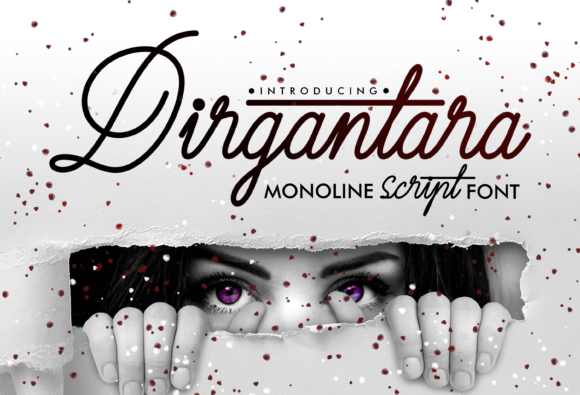
Introducing Dirgantara Font: A Fresh and Modern Script Font
Are you tired of using the same old fonts in your designs? Look no further! Dirgantara Font is a fresh and modern script font that is sure to elevate your creative projects. With its handmade calligraphy style and amazing decorative characters, Dirgantara Font is perfect for designers and crafters looking to add a touch of elegance and sophistication to their work.
What is Dirgantara Font?
Dirgantara Font is a modern script font that is inspired by the art of calligraphy. It has a unique, handmade feel that gives it a personal and distinctive touch. The font is designed to be highly legible and versatile, making it perfect for use in a wide range of creative projects, from branding and advertising to packaging and stationery.
Key Features of Dirgantara Font
• Handmade Calligraphy Style: Dirgantara Font has a beautiful, handmade calligraphy style that gives it a unique and personal feel.
• Amazing Decorative Characters: The font includes a range of amazing decorative characters, including swashes, flourishes, and ligatures.
• Modern and Fresh: Dirgantara Font is a fresh and modern take on traditional script fonts, making it perfect for designers and crafters looking for a unique and stylish font.
• Highly Legible: The font is designed to be highly legible, even at small sizes, making it perfect for use in a wide range of creative projects.
• Versatile: Dirgantara Font is a versatile font that can be used in a wide range of creative projects, from branding and advertising to packaging and stationery.
Who is Dirgantara Font for?
Dirgantara Font is perfect for designers and crafters who are looking for a fresh and modern script font to add to their collection. Whether you’re a professional designer or a crafty DIY enthusiast, Dirgantara Font is a great choice for anyone looking to add a touch of elegance and sophistication to their creative projects.
How to Use Dirgantara Font
Dirgantara Font is easy to use and can be incorporated into a wide range of creative projects. Here are a few ideas to get you started:
• Branding and Advertising: Use Dirgantara Font to create stunning brand identities, including logos, business cards, and letterheads.
• Packaging: Add a touch of elegance and sophistication to your packaging with Dirgantara Font.
• Stationery: Use Dirgantara Font to create beautiful stationery, including invitations, greeting cards, and thank-you notes.
• Digital Design: Dirgantara Font can also be used in digital design, including website headers, social media graphics, and email newsletters.
Tips and Tricks for Using Dirgantara Font
Here are a few tips and tricks to help you get the most out of Dirgantara Font:
• Experiment with Different Sizes: Dirgantara Font looks great at a range of sizes, from large headings to small body text.
• Play with Decorative Characters: The font’s decorative characters are a great way to add visual interest and personality to your designs.
• Pair with Other Fonts: Dirgantara Font pairs well with a range of other fonts, including sans-serif fonts and serif fonts.
Dirgantara Font is a fresh and modern script font that is perfect for designers and crafters looking to add a touch of elegance and sophistication to their creative projects. With its handmade calligraphy style and amazing decorative characters, Dirgantara Font is a versatile and highly legible font that can be used in a wide range of creative projects. So why not give it a try and see the difference it can make in your designs?